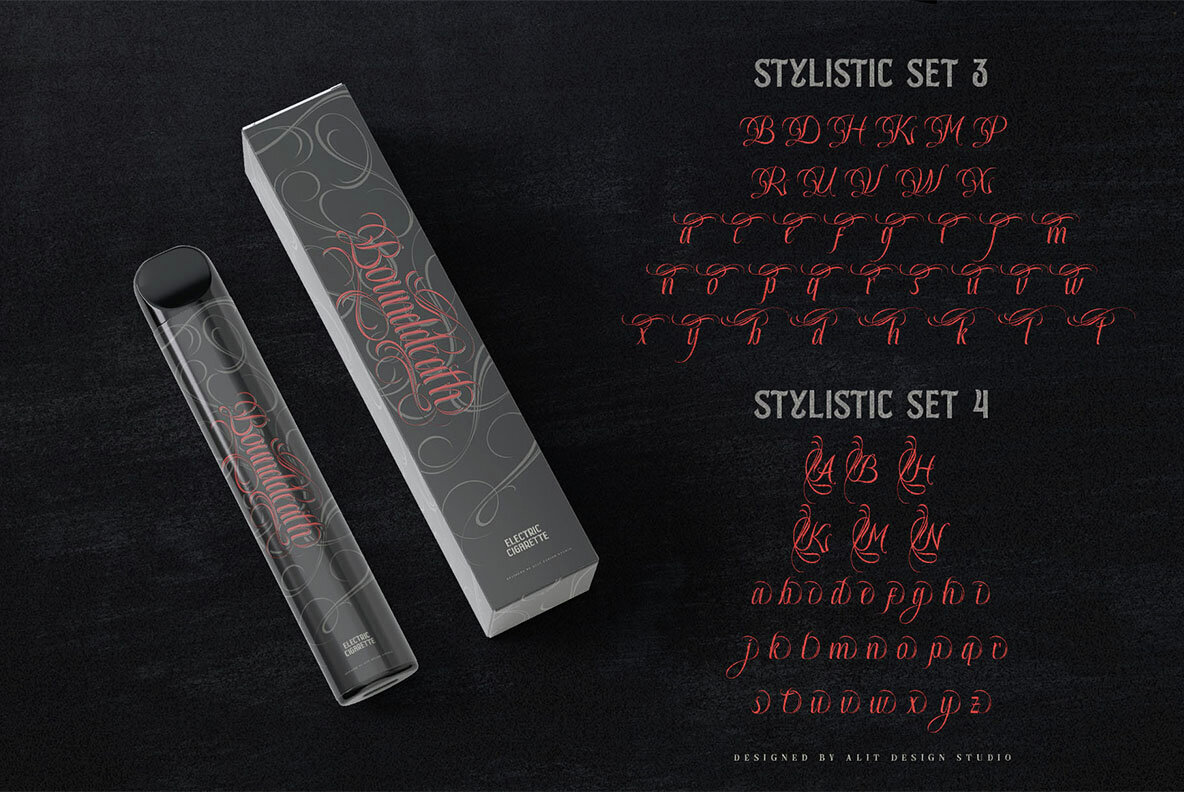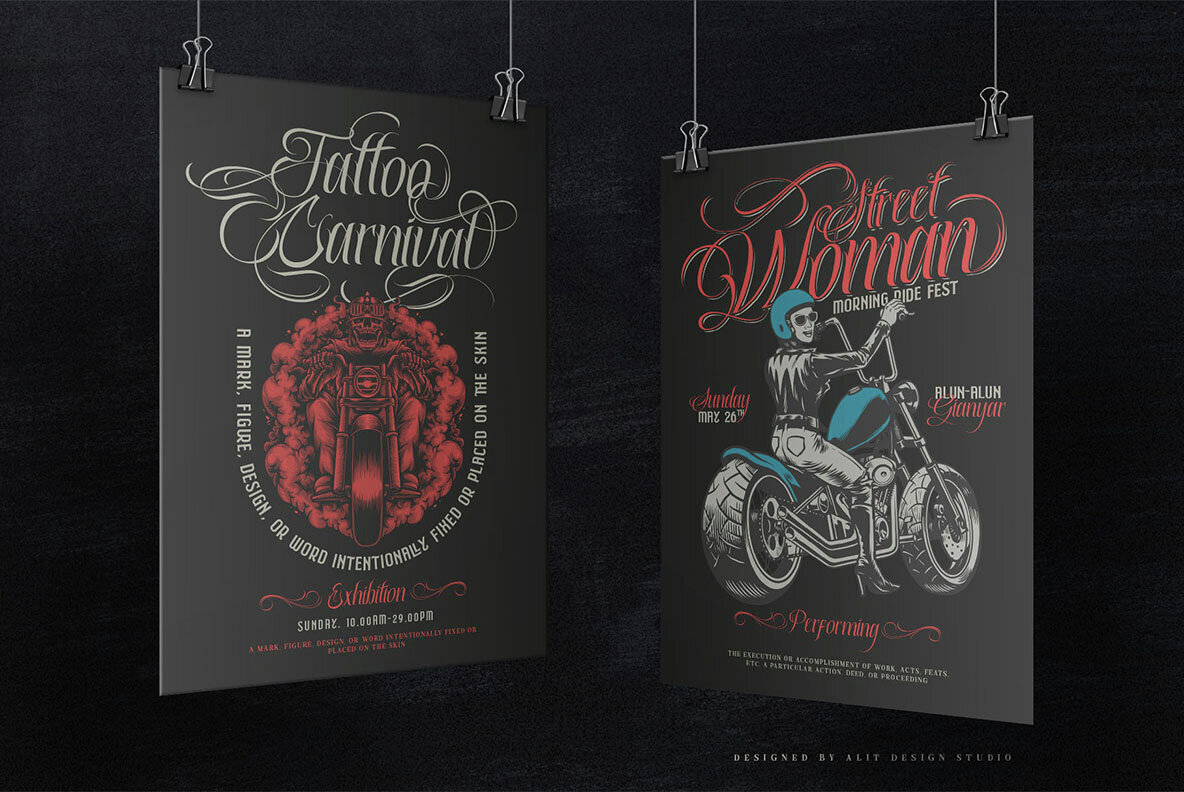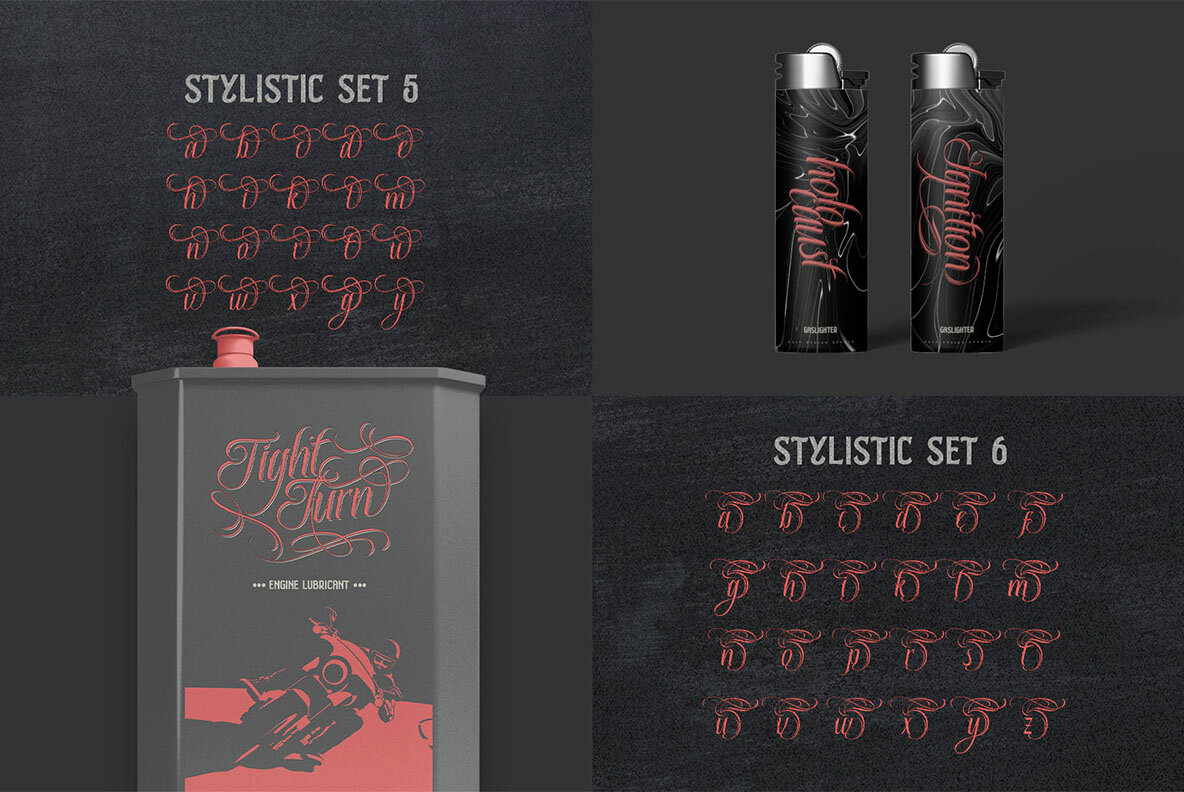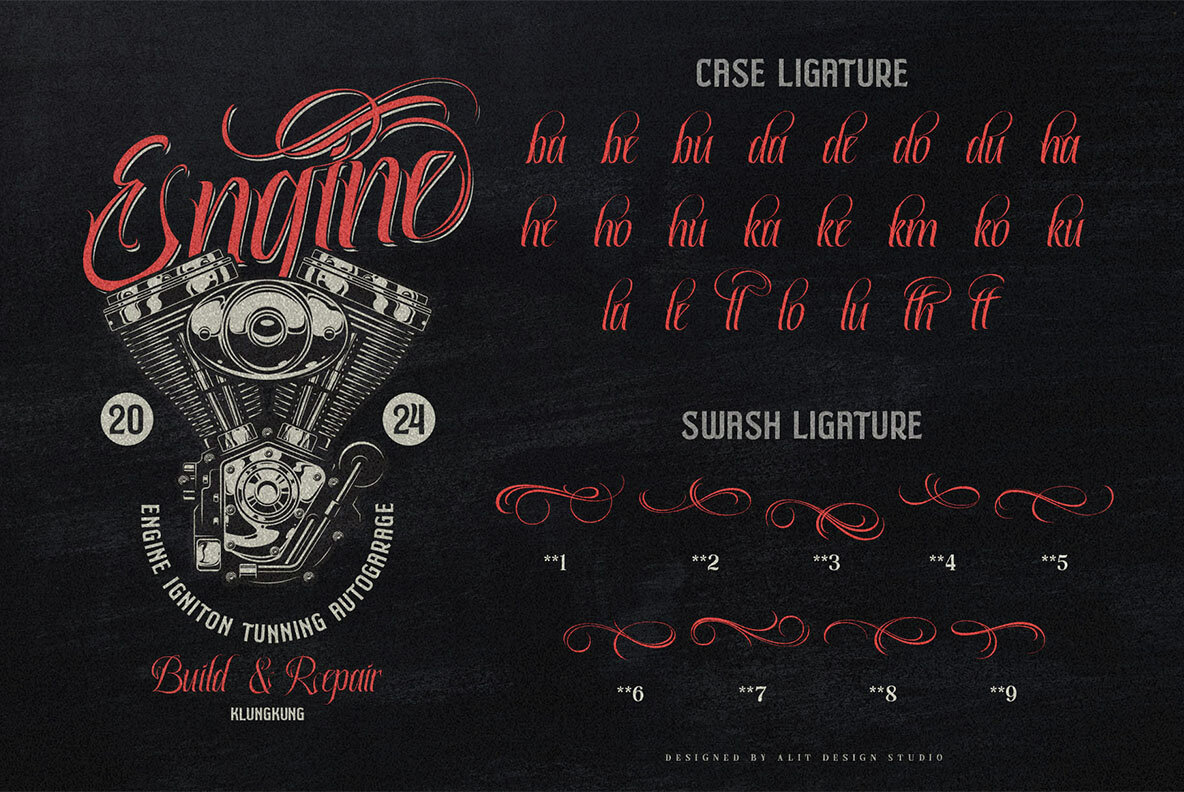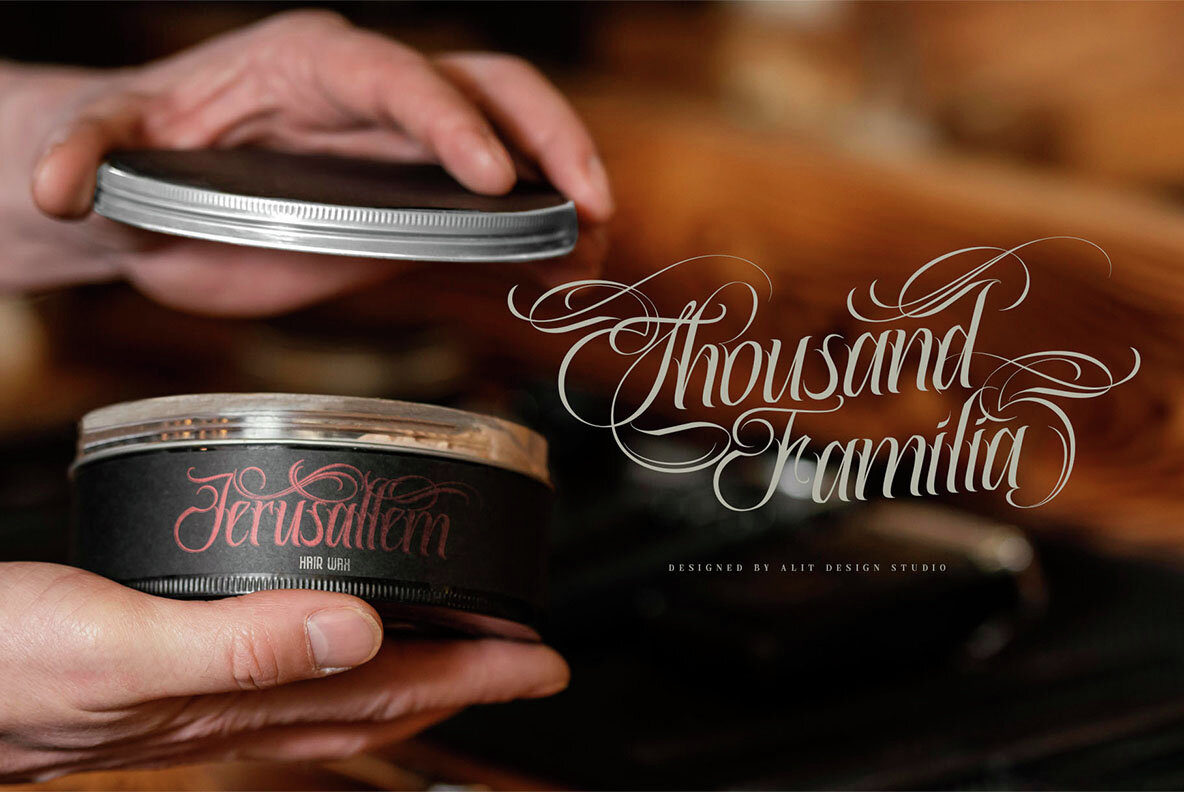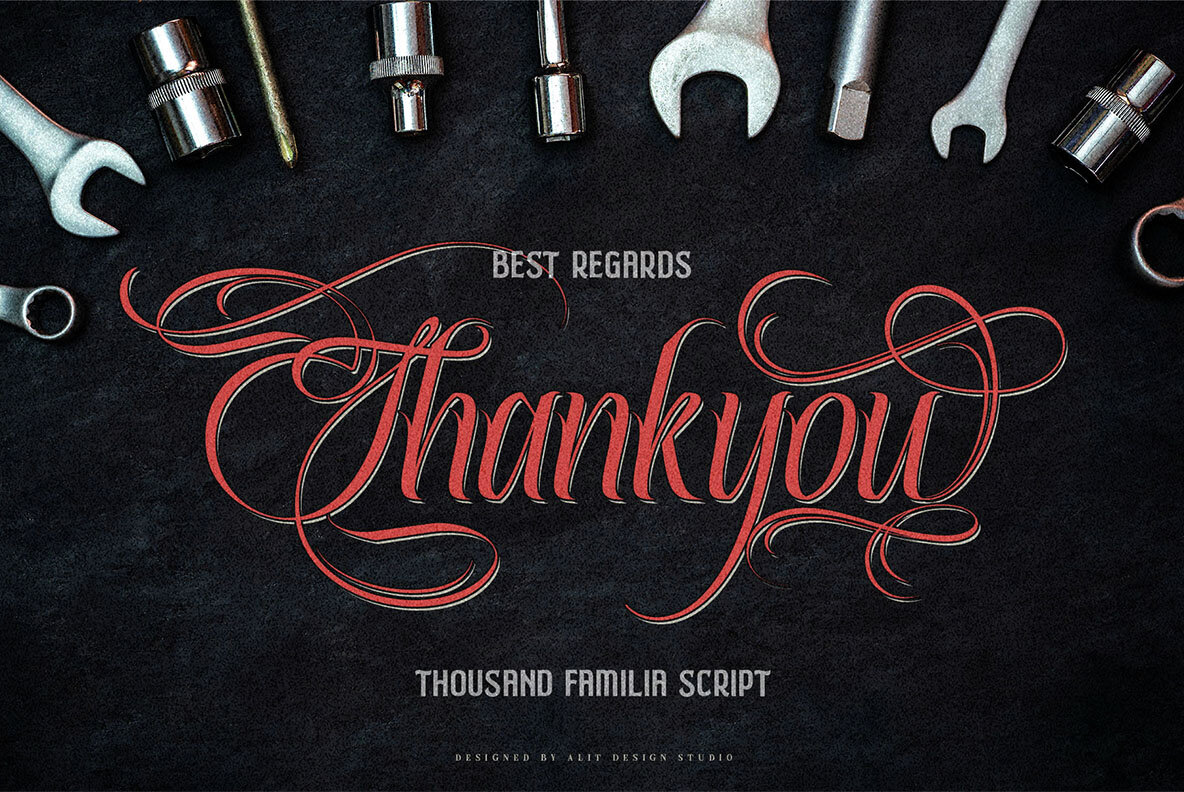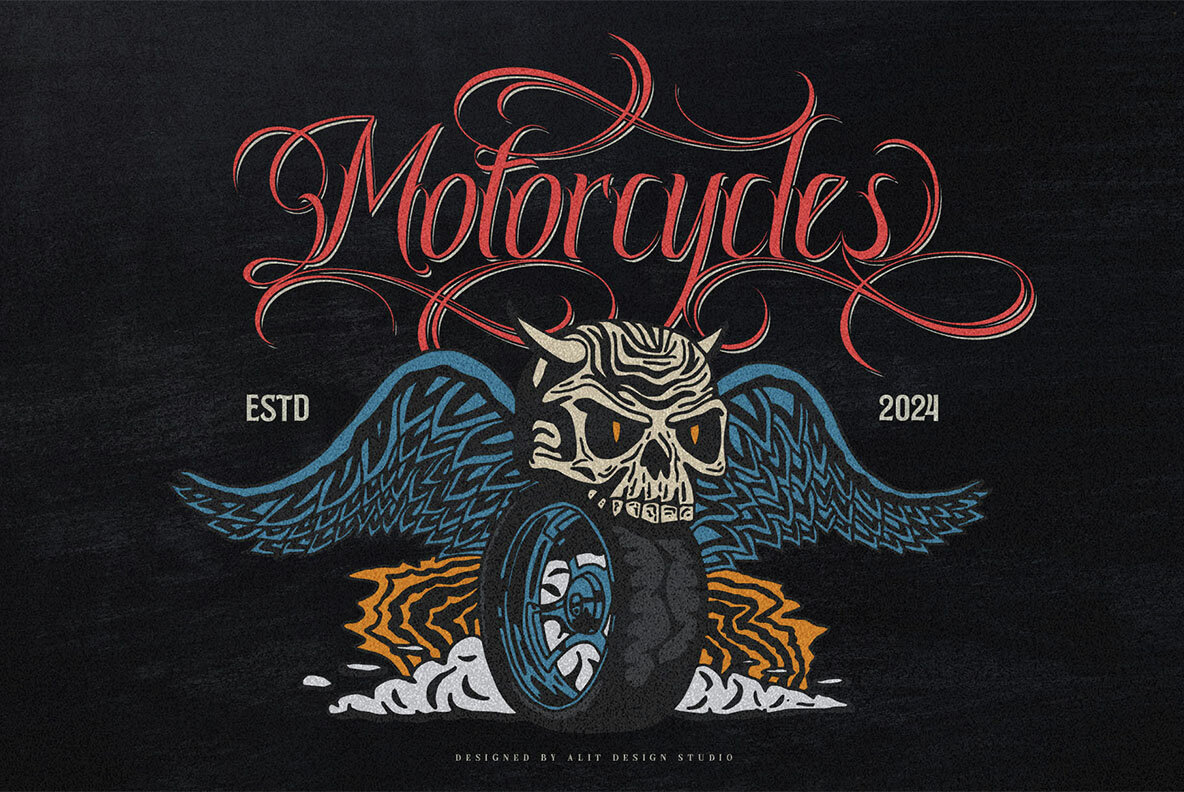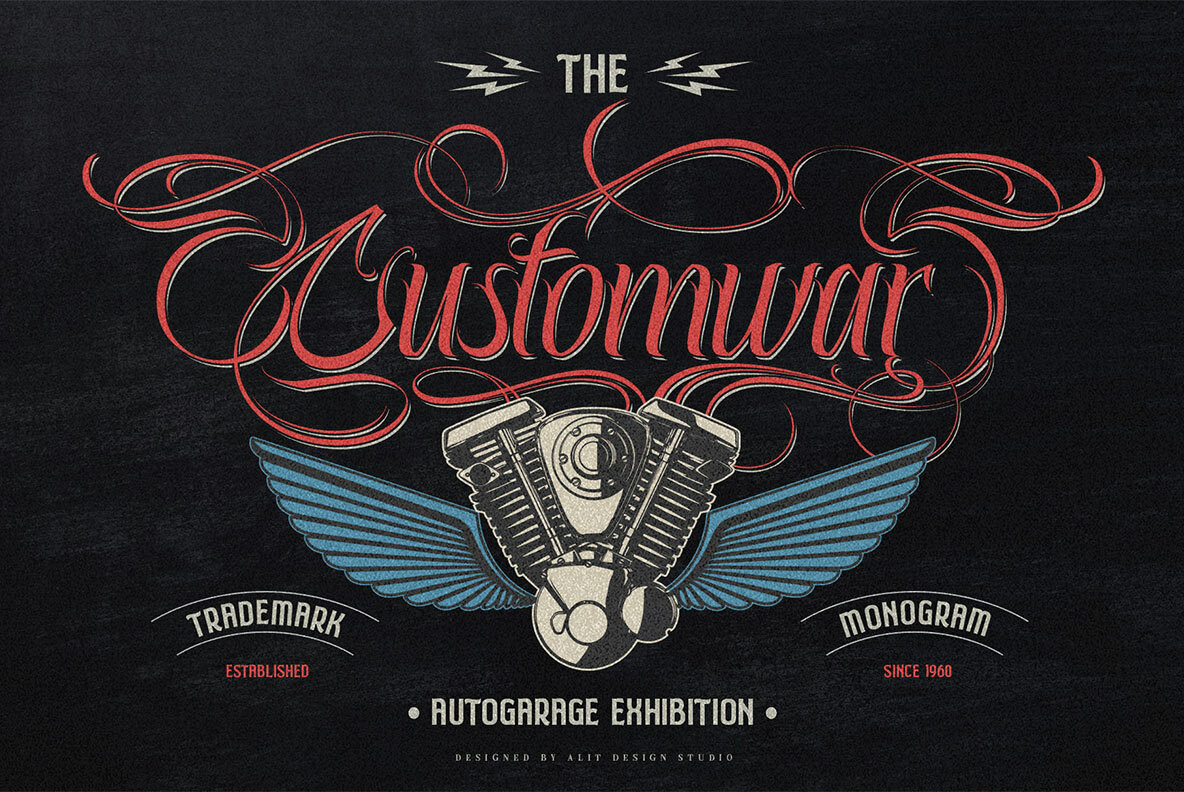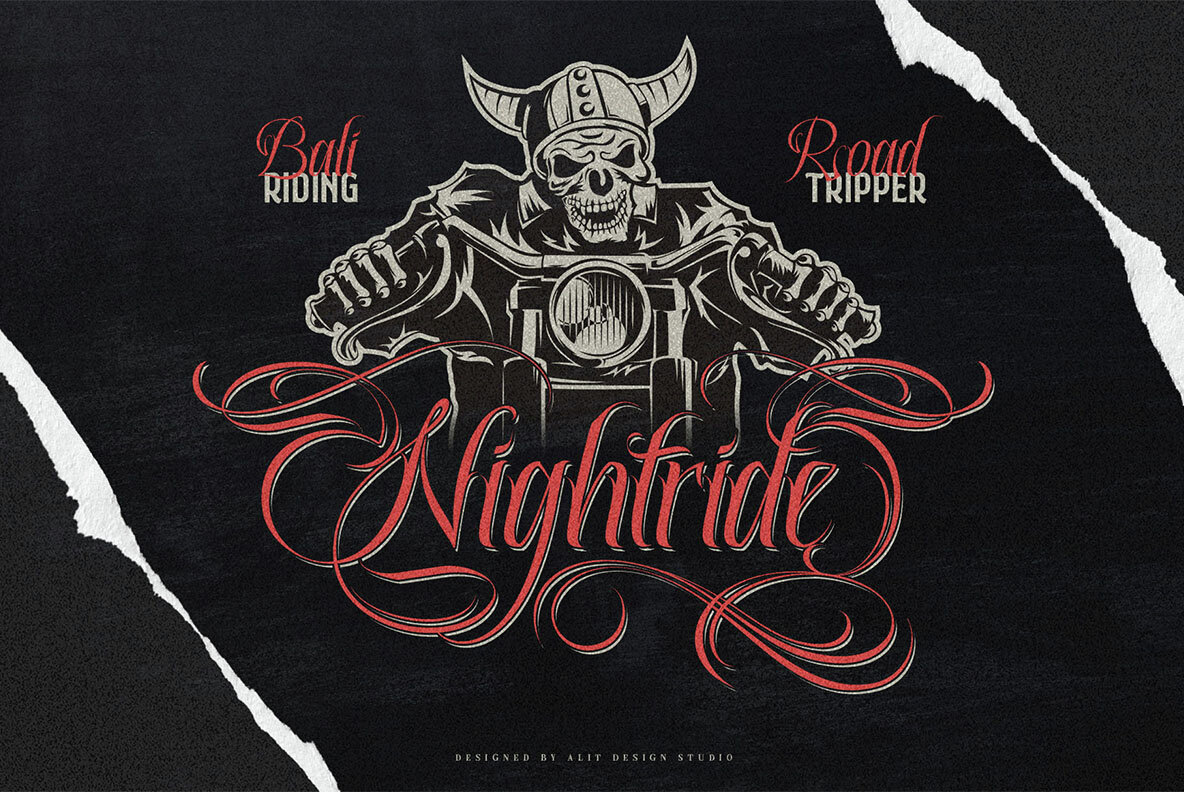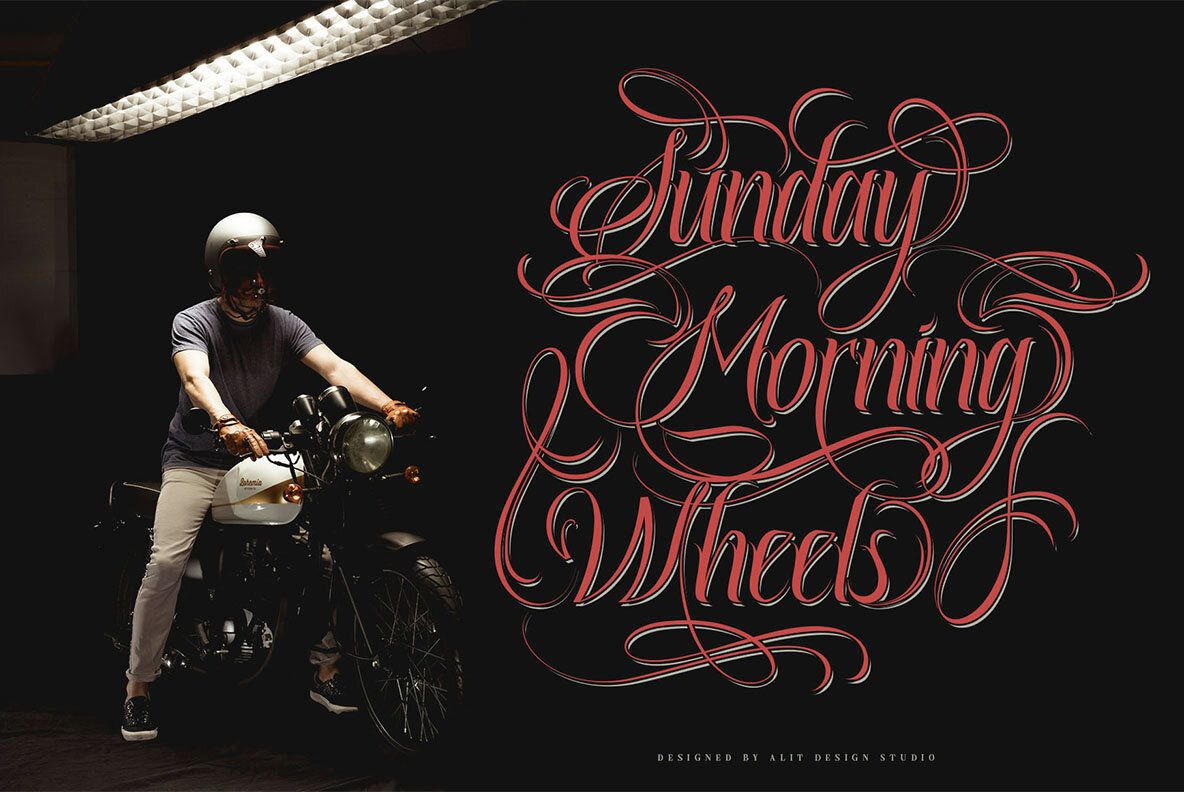
Thausand Familia: Embrace the Art of Ink with Every Letter Step into the rich, bold world of "Thausand Familia," a script font that masterfully blends the fierce spirit of Mexican gangster tattoo artistry with contemporary elegance. Designed for those who dare to express their creativity without limits, Thausand Familia brings a unique, hand-inked aesthetic to your projects. Authentic Tattoo Style: Inspired by the intricate and daring designs of Mexican gangster tattoos, Thausand Familia captures the essence of street art and the cultural heritage of bold, expressive ink. Every letter is a statement, each stroke a work of art. Handcrafted Detail: Each character in Thausand Familia has been meticulously crafted to reflect the precision and artistry of traditional tattooing. The flowing curves, sharp edges, and elaborate flourishes bring a handmade feel that stands out in any design. Versatile Script: Thausand Familia's dynamic script style makes it perfect for a wide range of applications. From logo design and branding to posters, apparel, and social media graphics, this font adds a distinctive edge that commands attention. Cultural Fusion: Celebrating the fusion of tradition and modernity, Thausand Familia pays homage to the rich history of Mexican tattoo culture while providing a fresh, contemporary twist. It's a font that tells a story, rooted in heritage yet designed for today's creative needs. Complete Character Set: Featuring a full set of uppercase and lowercase letters, numbers, punctuation, and special characters, Thausand Familia ensures you have everything you need to create striking, cohesive designs. Usage Ideas: Thausand Familia is more than just a font; it's a journey into the world of tattoo artistry, where each letter is a tribute to the bold, the brave, and the beautiful. Whether you're looking to add an edge to your brand or bring a touch of cultural richness to your designs, Thausand Familia is the ultimate choice for those who want their words to leave a lasting impression. Embrace the art of ink with Thausand Familia, and let your creativity flow like never before.